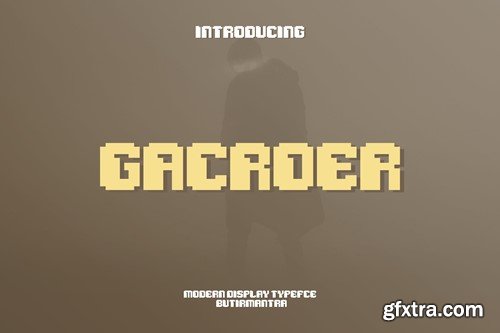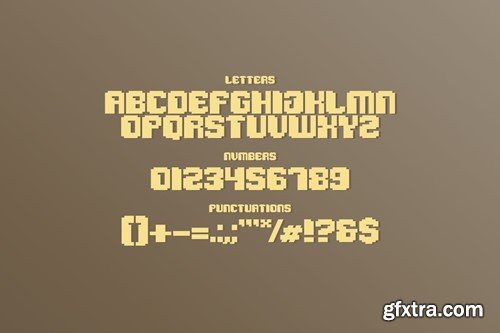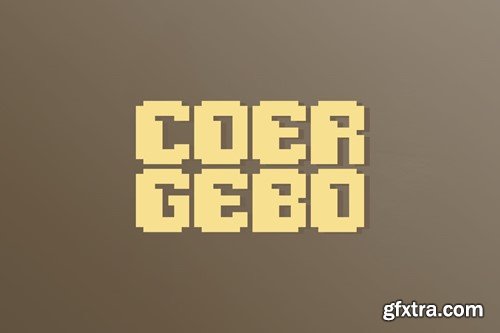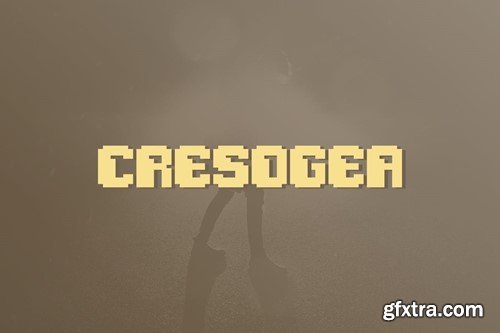
格卡罗 - 现代像素字体 SLUNJ95
Gacroer - Modern Pixels Font
Gacroer is a fresh pixel-style font, coming in modern and sophisticated all-caps. Bringing back the old school feel with a modern touch, this will be suitable for branding or future designs, as it has a timeless style. Gacroer will also be great for logos, titles, posters, magazines and other types of designs. Don’t miss this font for a more stand out design experience. File Included : Thanks for subscribe and good luck with your project!